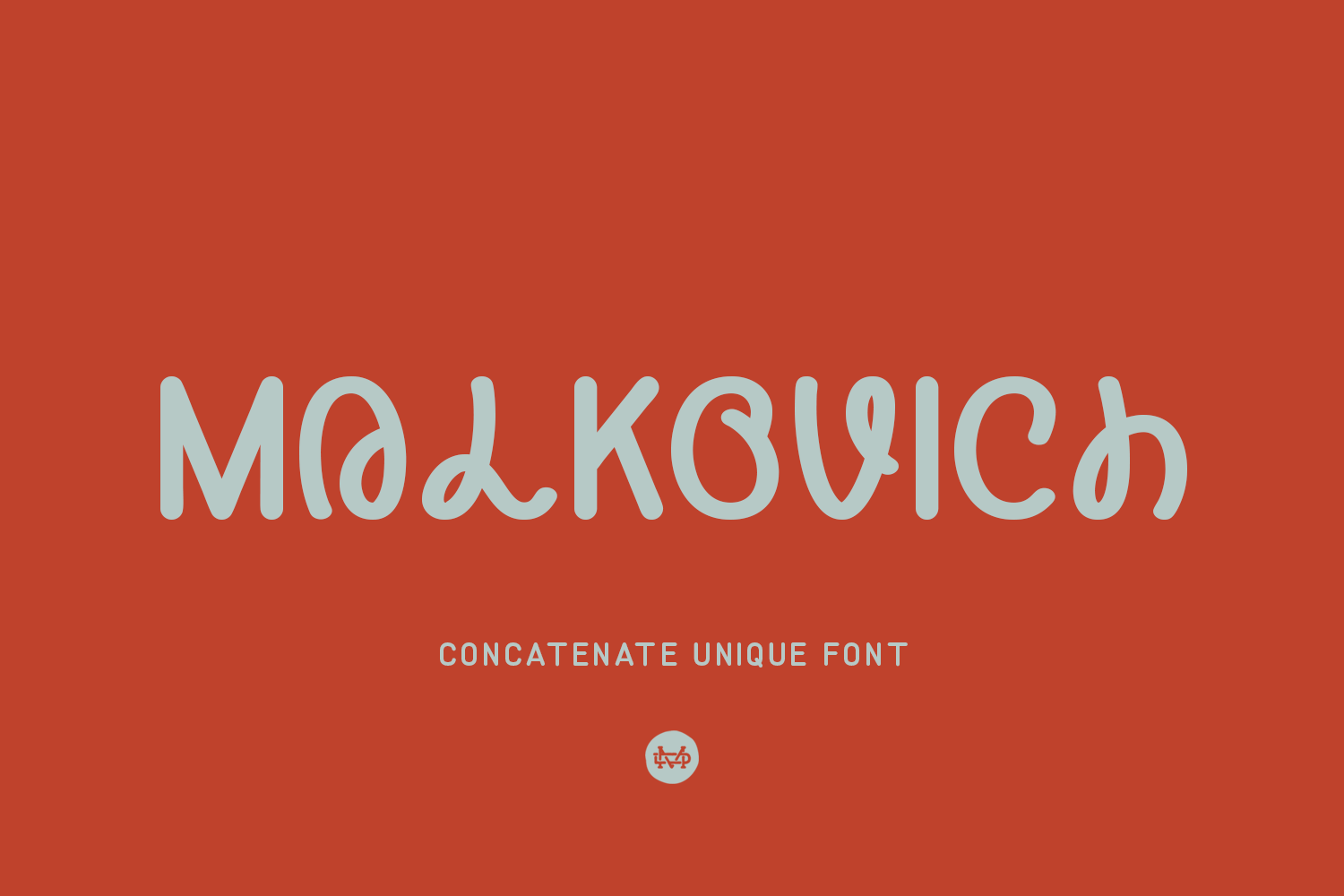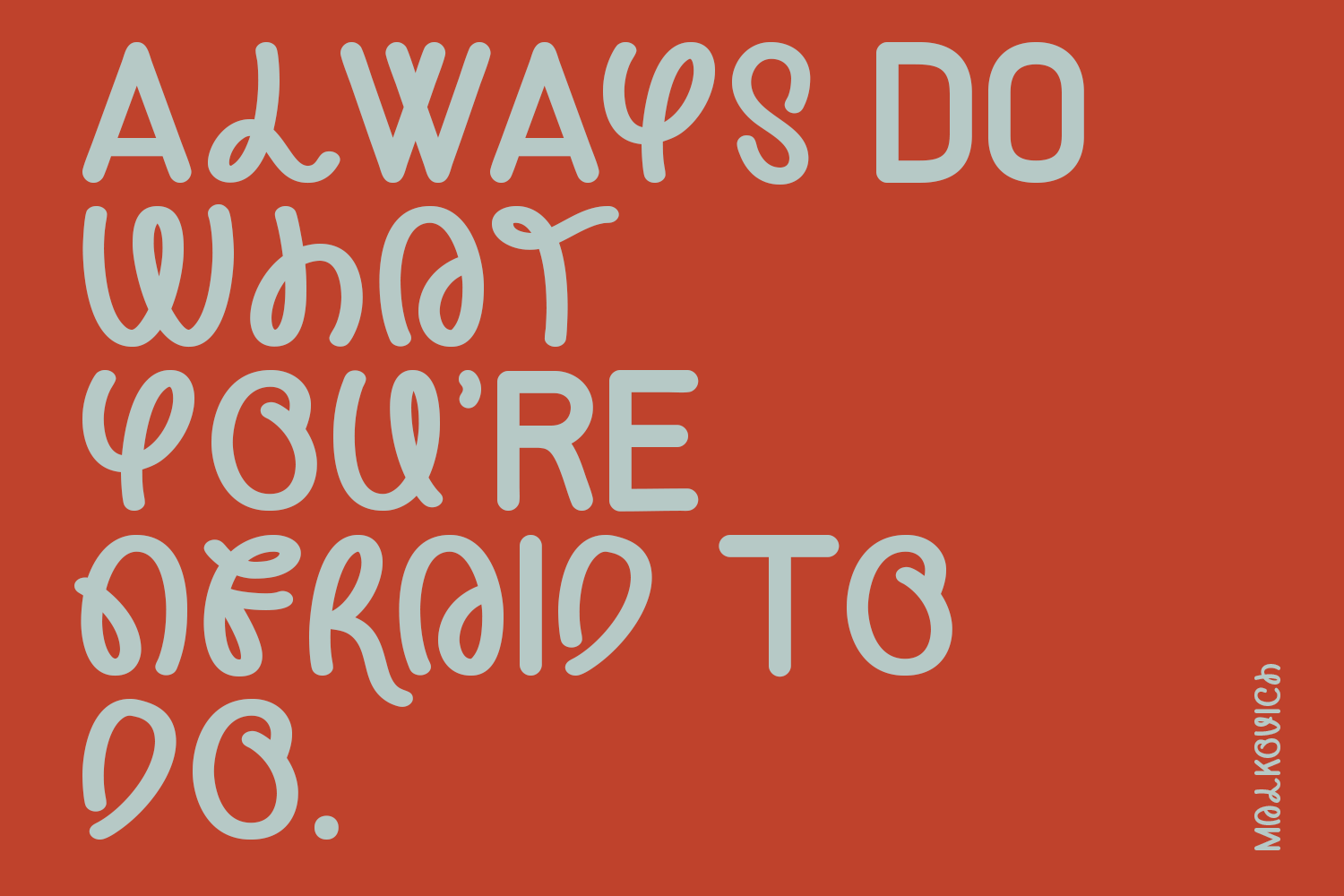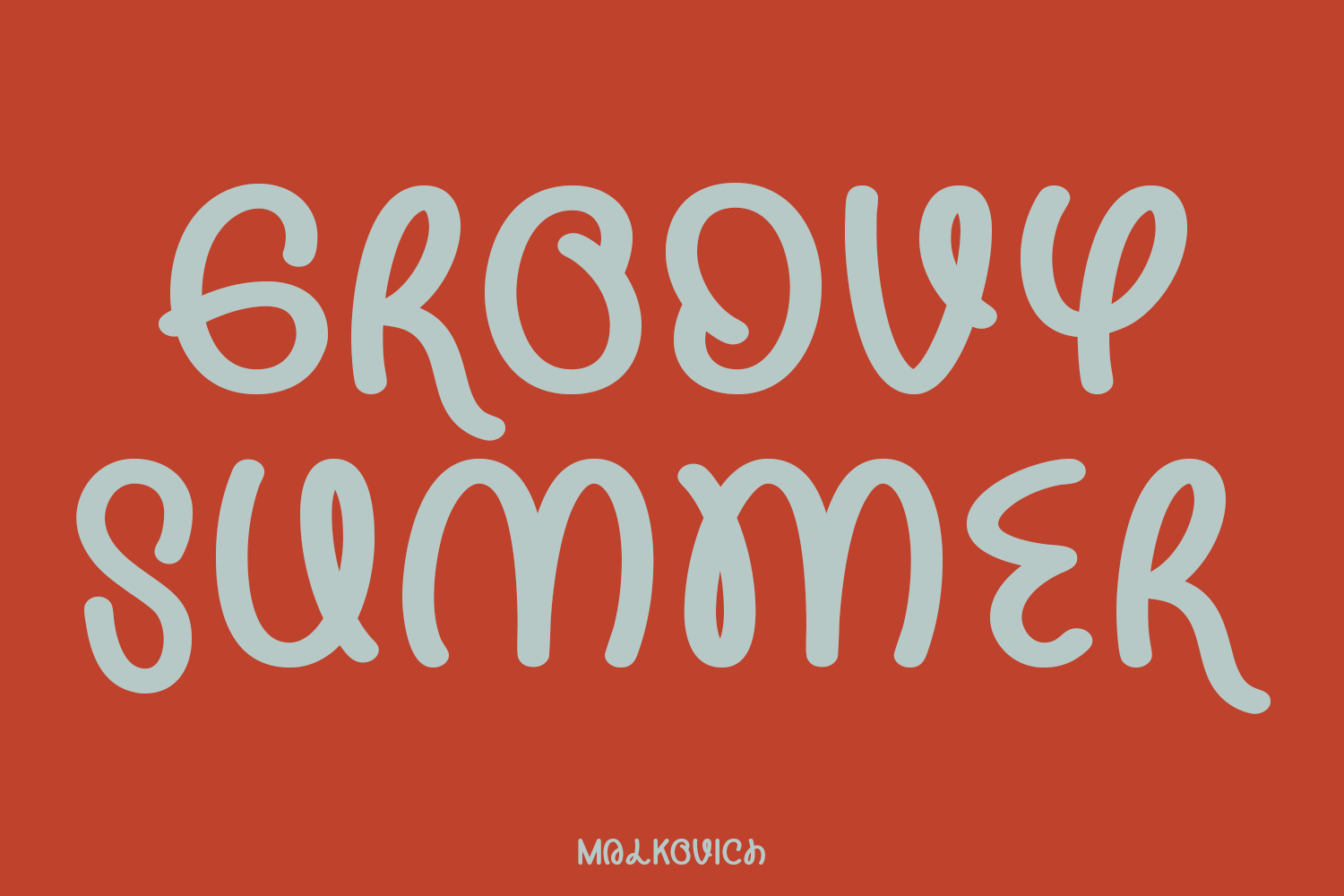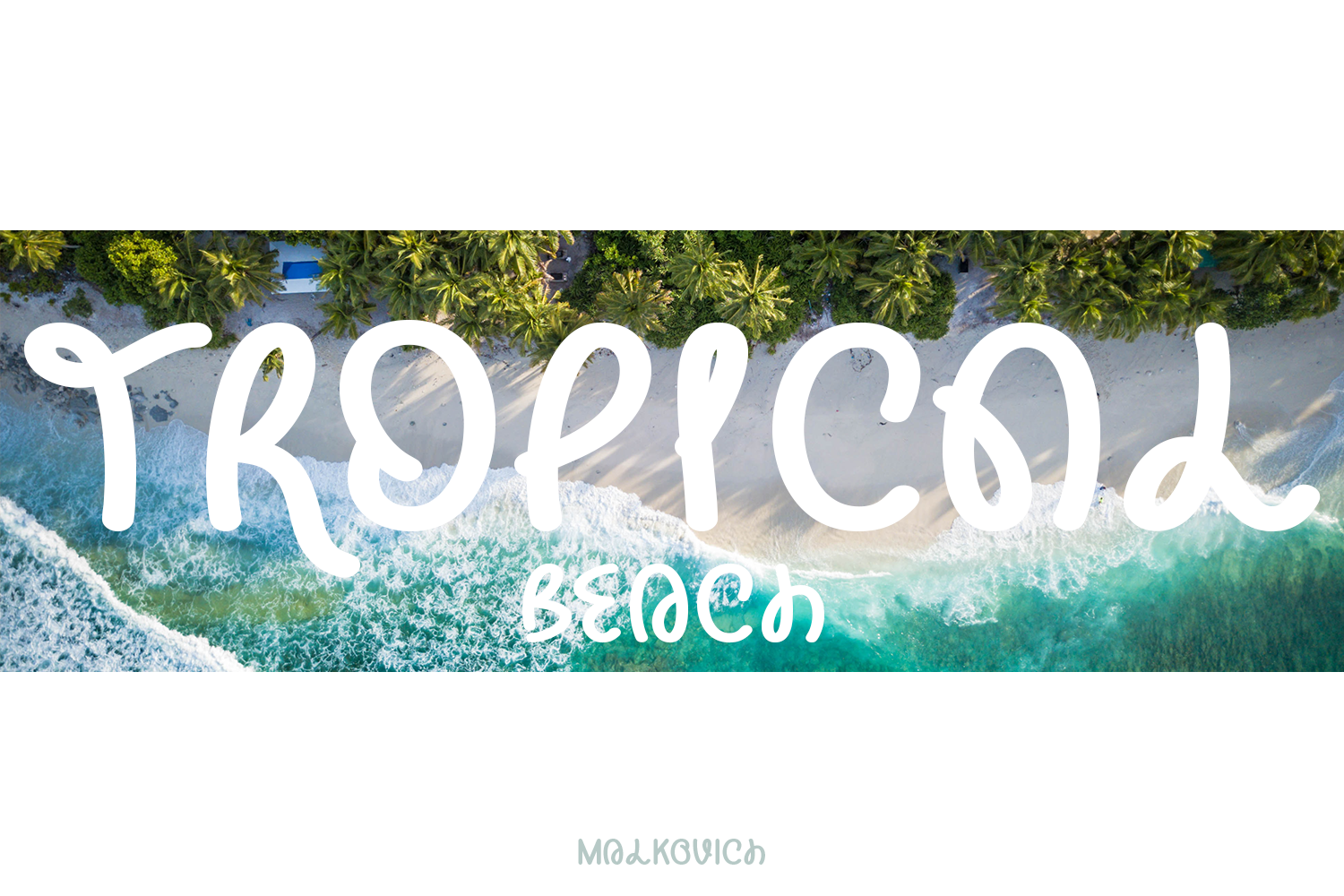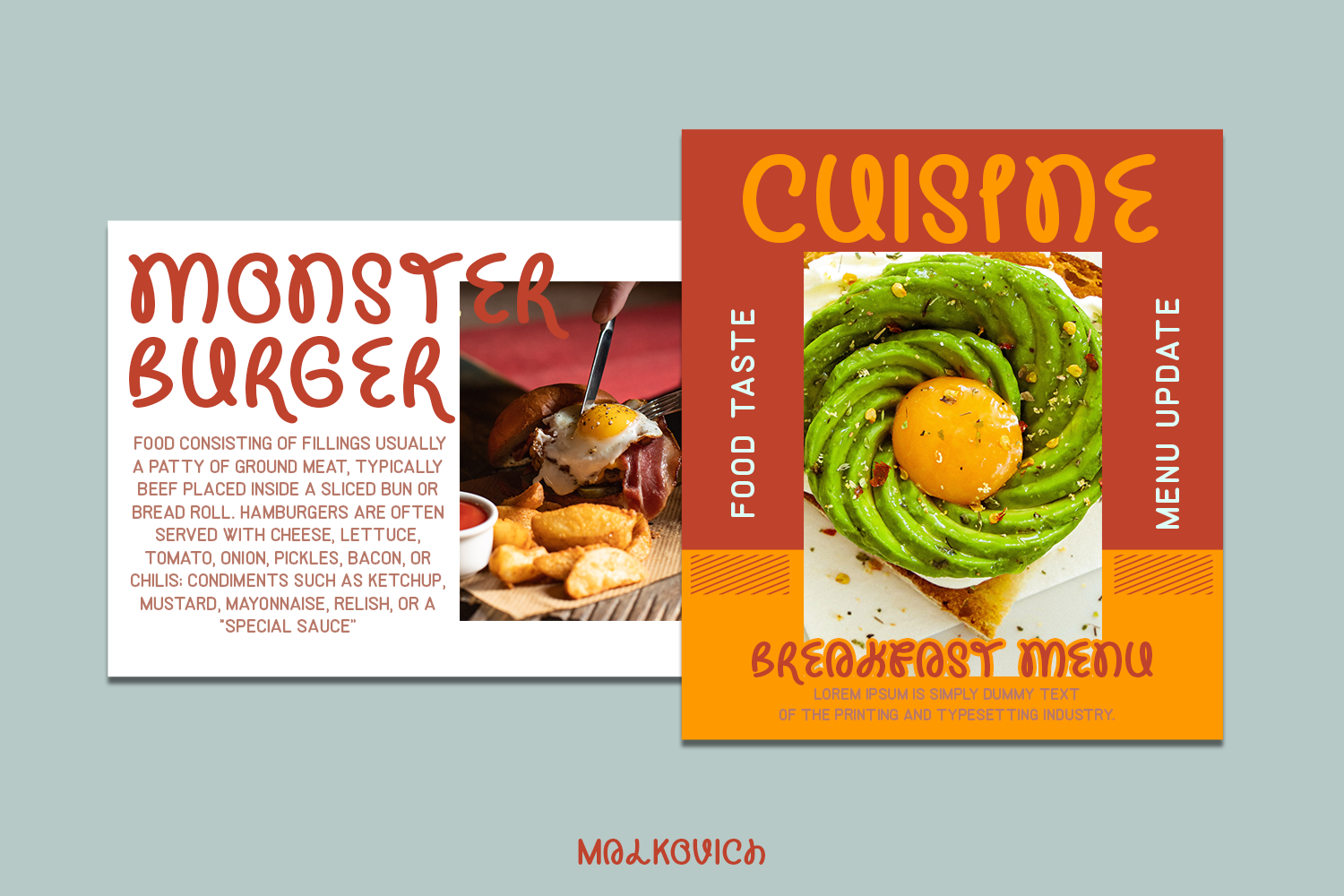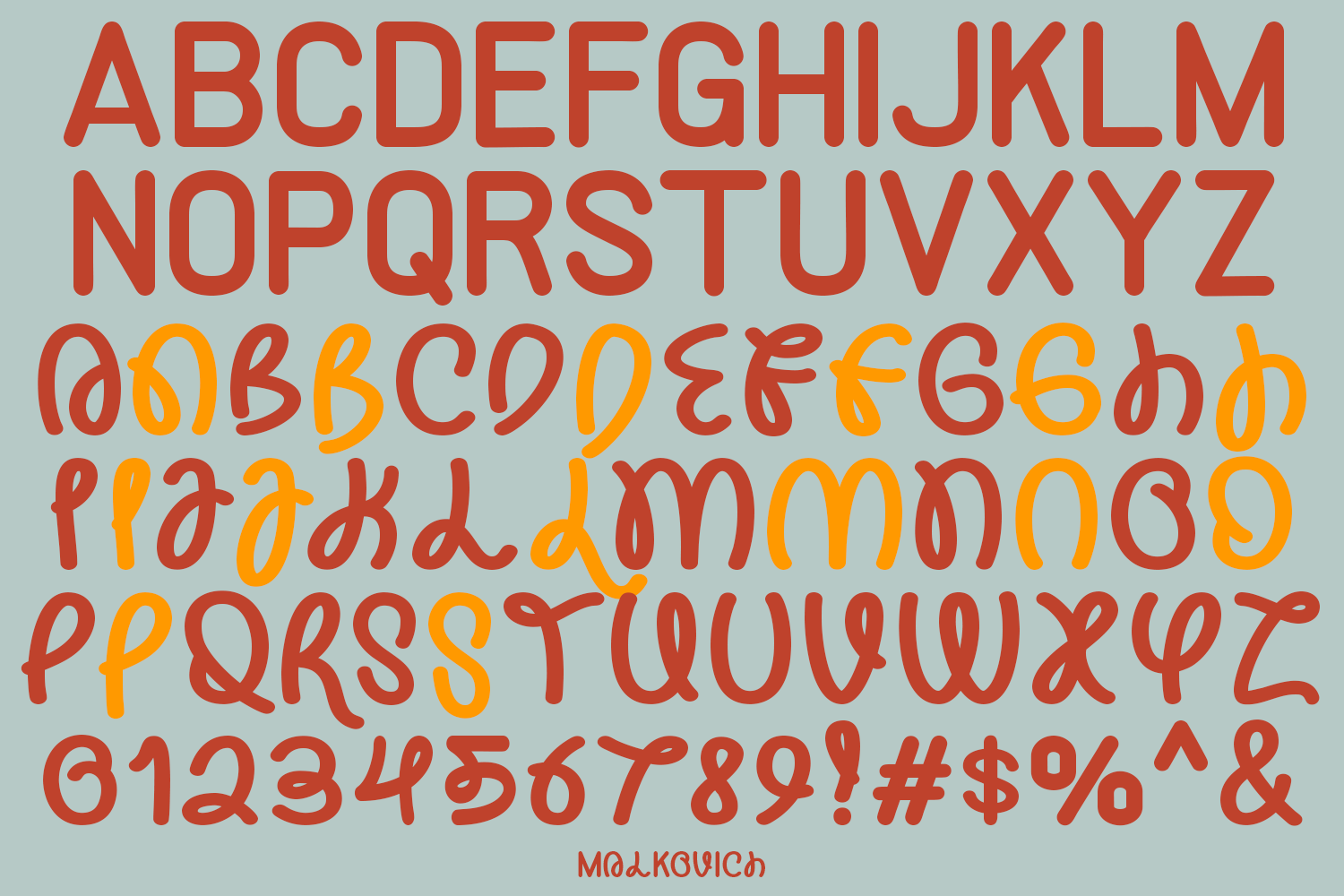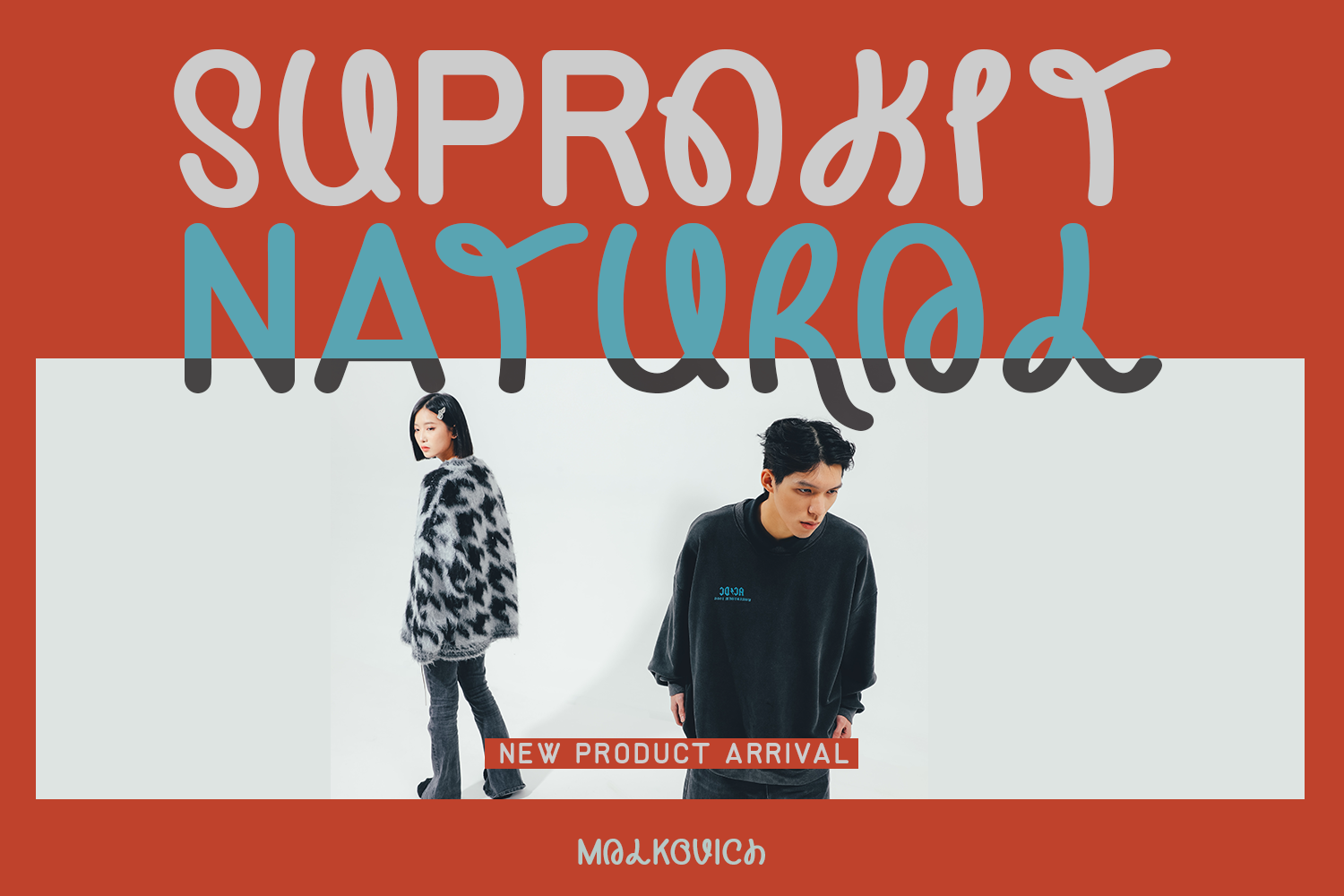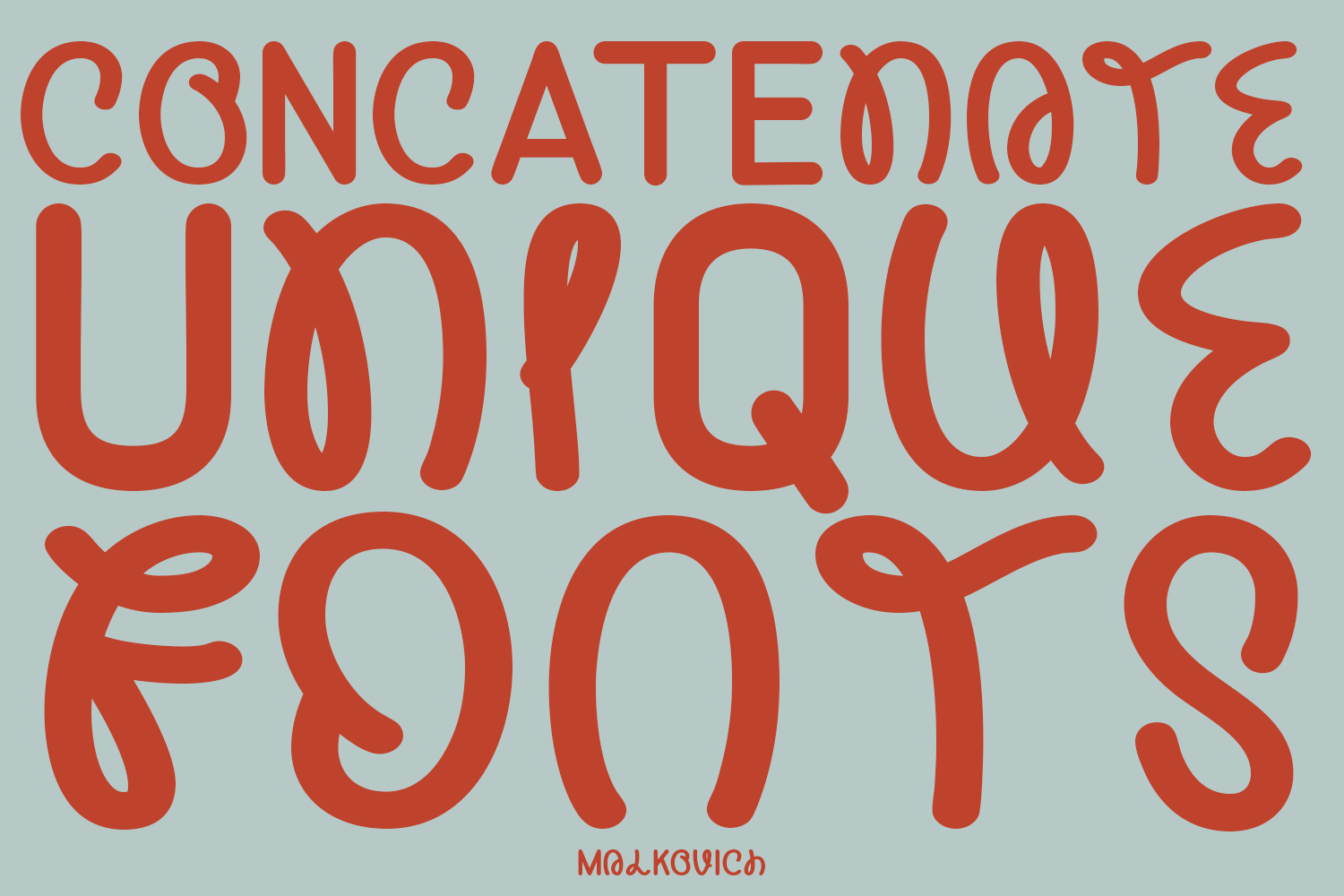
Malkovich designed to become a concatenate unique font, this font has the potential to bring each of your creative ideas. Combine with standard and special alternative glyphs so you can create a lot with layouts and compositions. Malkovich brings a touch of custom typography to logos, websites, social media quotes, wedding branding, and more.